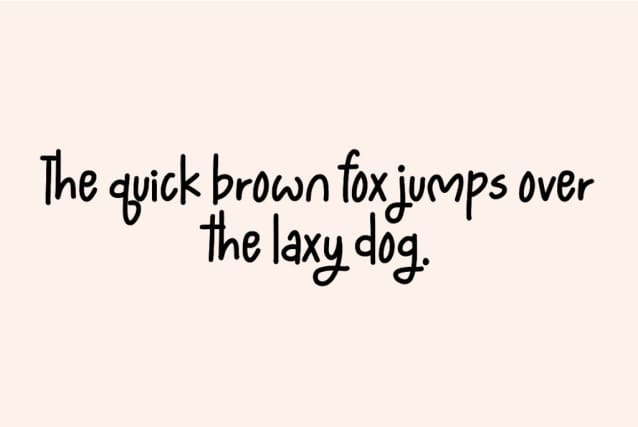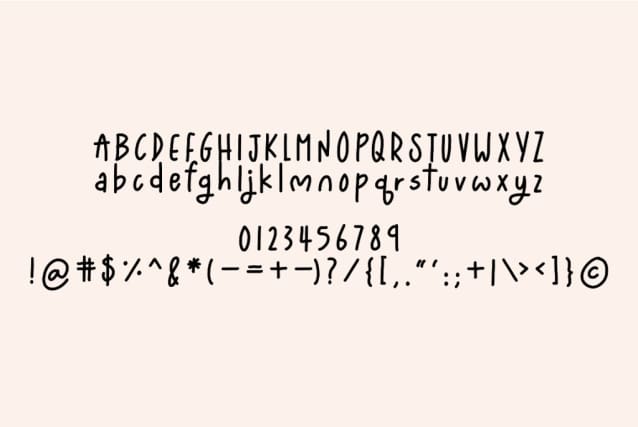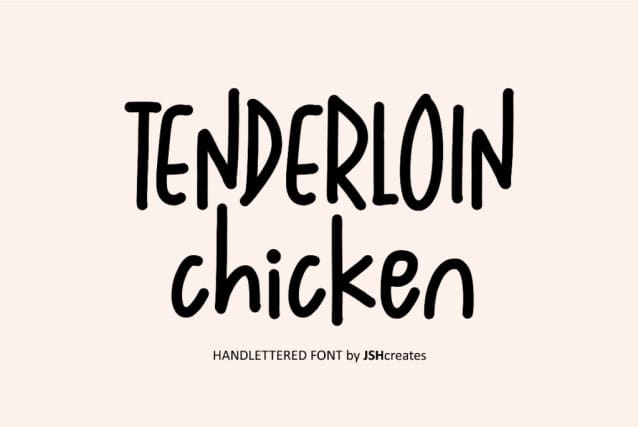
Tenderloin Chicken Font
Tenderloin Chicken Font. Cute, playful handwritten font. Perfect for advertising and display purposes, including banners, book covers, shirts, posters, logos and much more!